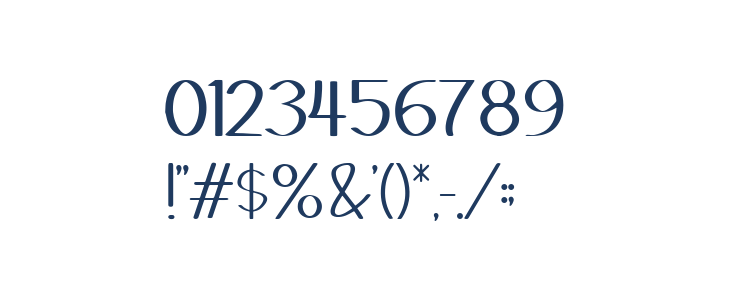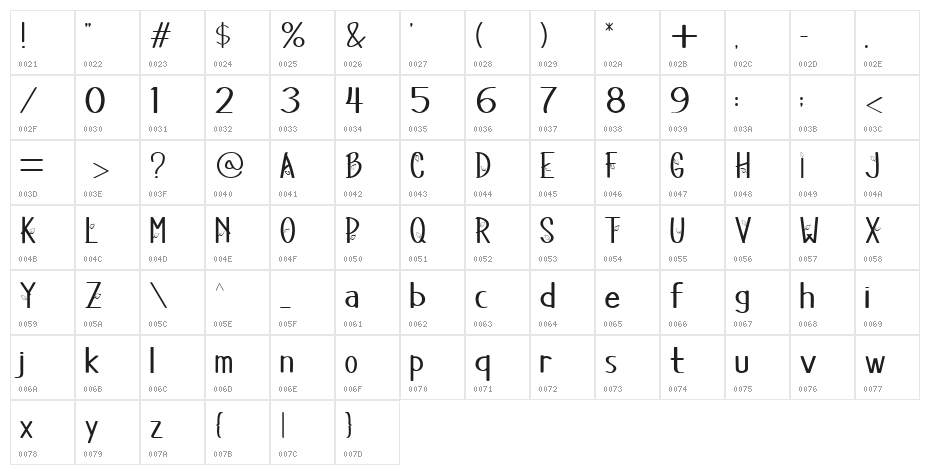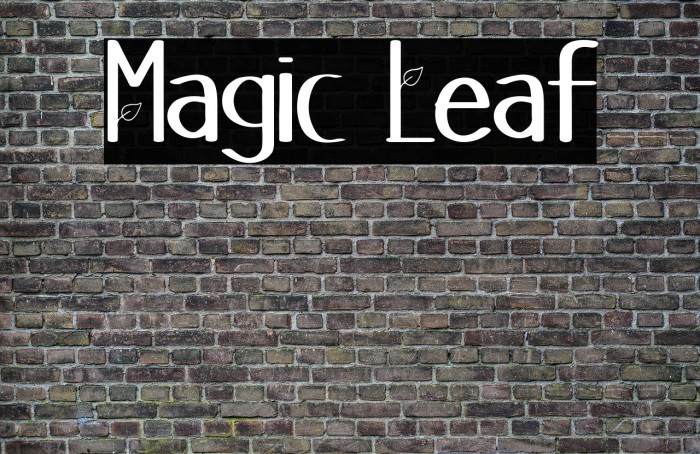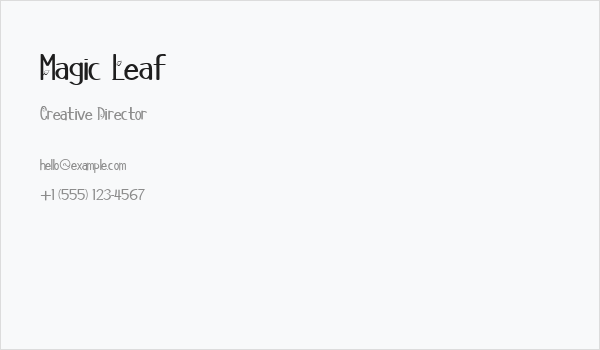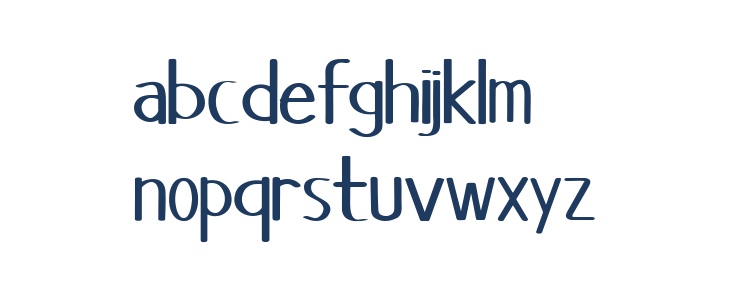
Magic Leaf Font
Magic Leaf Description
This whimsical and playful font features a unique design with leaf motifs integrated into the characters, giving it a natural and organic feel. The letters are tall and slender, with a slight curve that adds a touch of elegance. The uppercase and lowercase letters maintain a consistent style, while the numbers and special characters complement the overall aesthetic. The font's distinct personality makes it ideal for projects that require a touch of creativity and nature-inspired themes. Its decorative elements are subtle yet impactful, making it suitable for a variety of design applications.
| Proposed Projects | Ideal for eco-friendly branding, children's book covers, garden-themed invitations, and creative posters. |